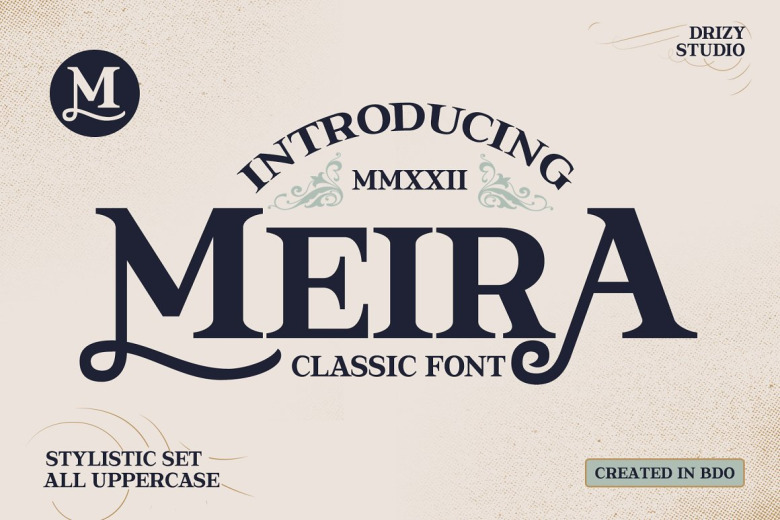
Meira Font
Introducing Meira! This vintage serif display font is brought to you by drizy! Our premium Etsy serif font is C L A N G. Coming as an all-caps member of the Serif Typeface family, Clang Font depicts a serious vintage persona through its class.
On upper characters, numbers, multi language, ligature and puctuation. With stunning logos & titles in mind, Meira is perfect. It pairs with almost any font and look for that project you’re working on now.
Meira Serif Display Font